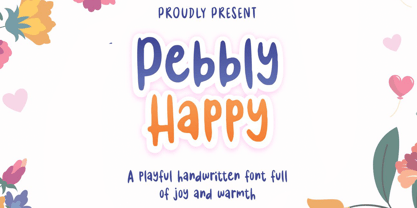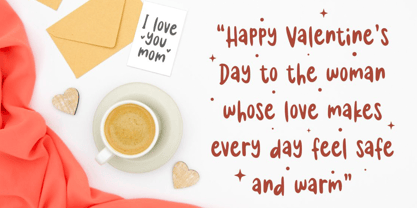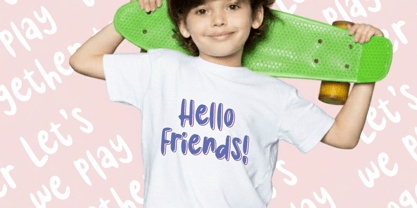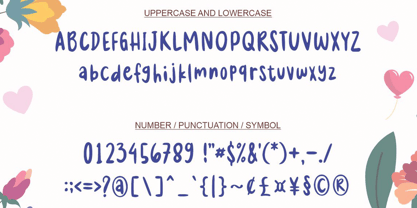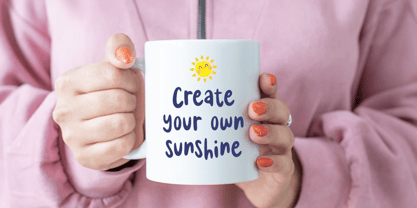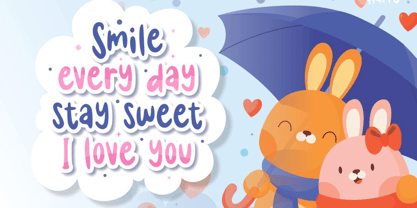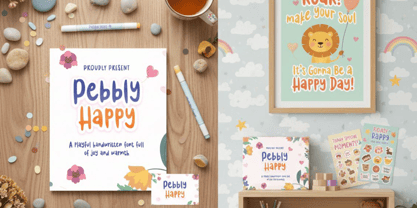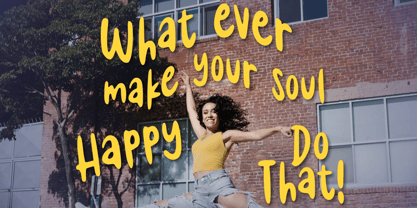
Pebbly Happy
by NH TypeStudio
The Pebbly Happy Font Family was designed by Hadi Nasrul and published by NH TypeStudio. Pebbly Happy contains 1 styles. More about this family
Establish an approachable and joyful brand foundation with the Pebbly Happy font, a playful handwritten typeface bursting with warmth.
This Pebbly Happy typeface is characterized by its rounded, pebble-like letterforms and a bouncy rhythm that perfectly captures the spontaneity of childhood creativity. It is an exceptional choice for children's educational materials, playful nursery decor, and vibrant social media headers that need to radiate positivity.
Designers will love the Pebbly Happy font for its unconventional and friendly silhouette that bridges the gap between the creator and the audience.
Use this Pebbly Happy typeface for toy store branding, colorful birthday invites, or as a fun header for family-oriented websites. Its high legibility and expressive charm ensure that your message remains engaging for all ages, providing a creative and professional touch to any project full of joy and lightheartedness.